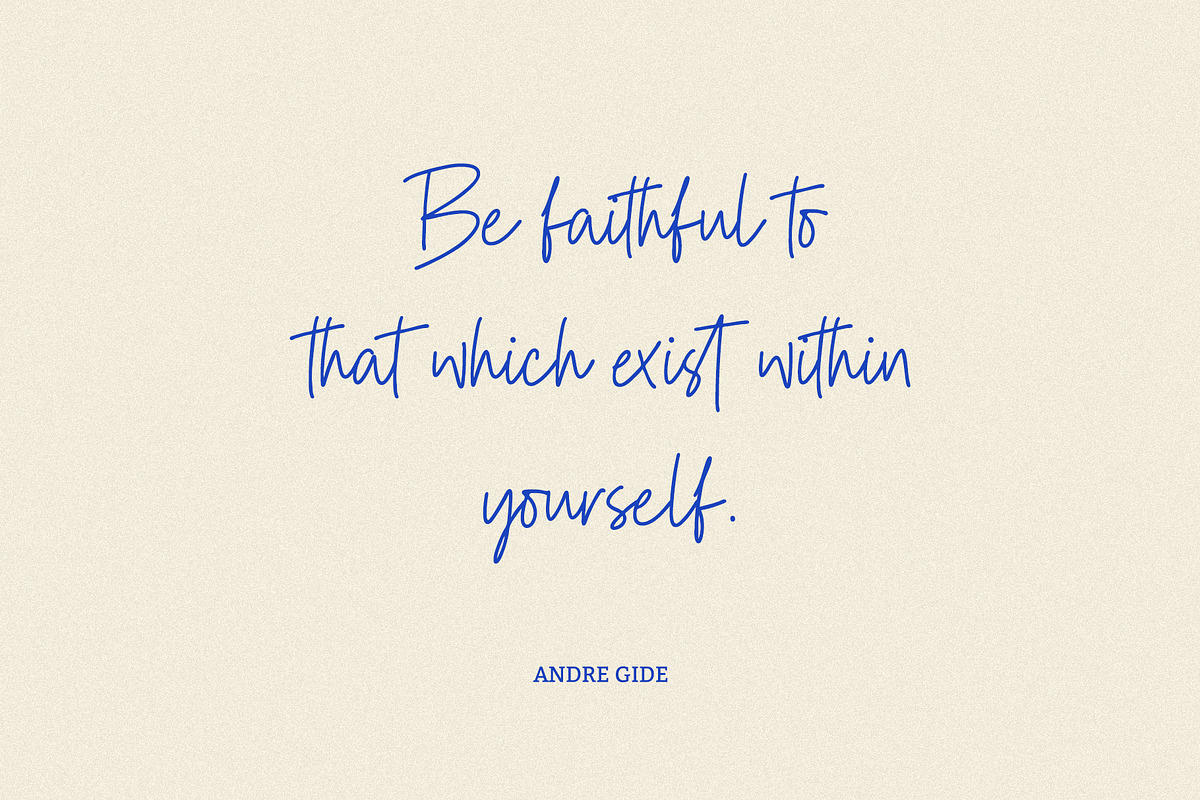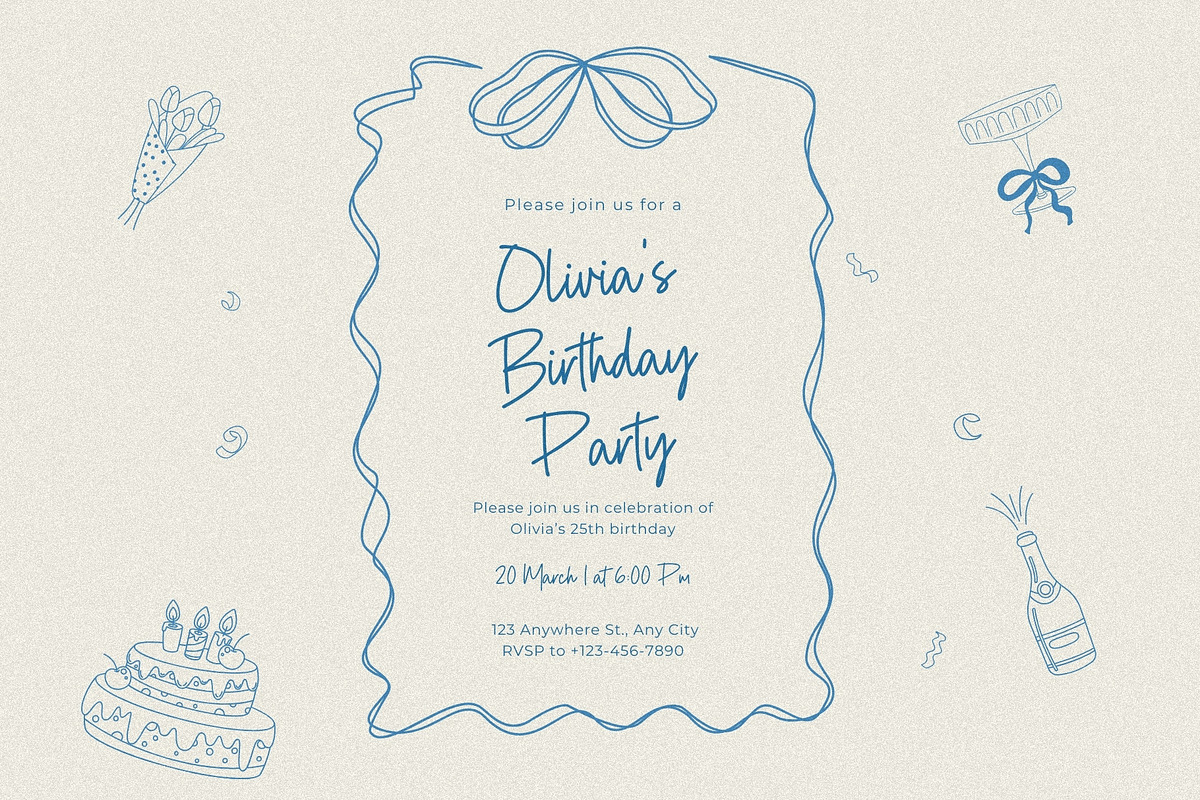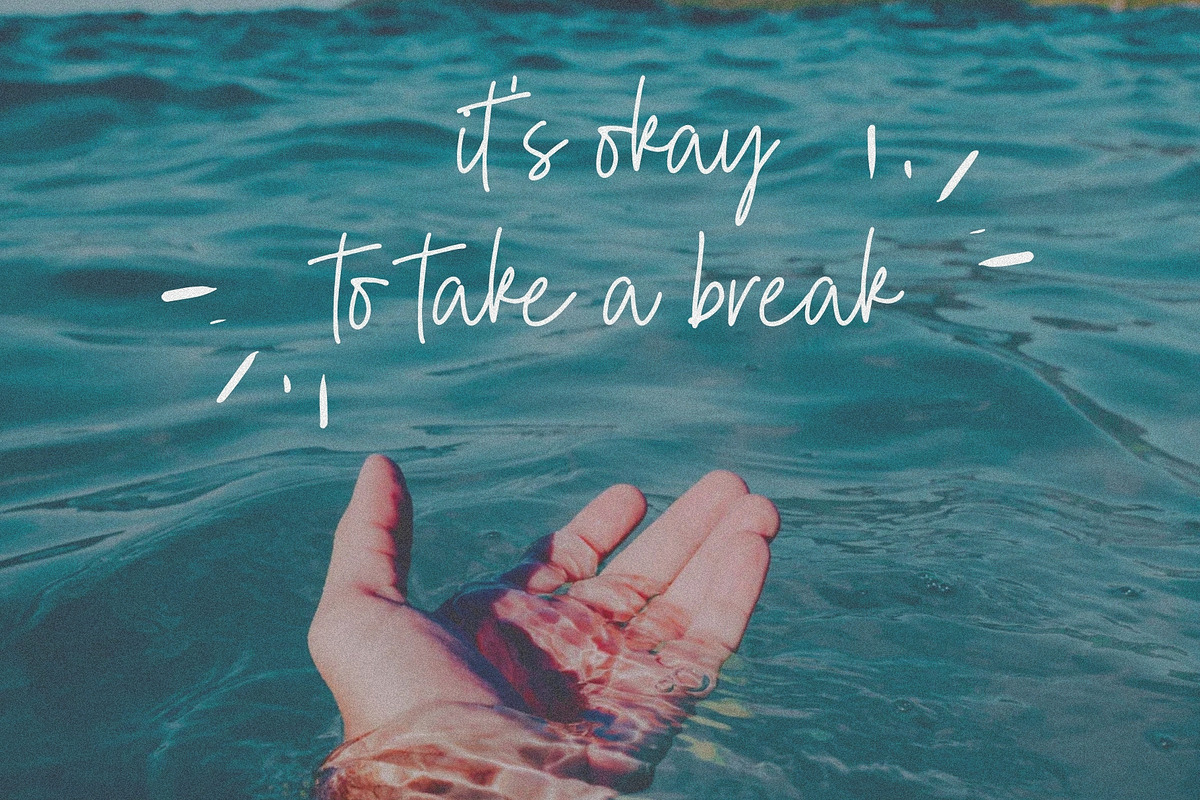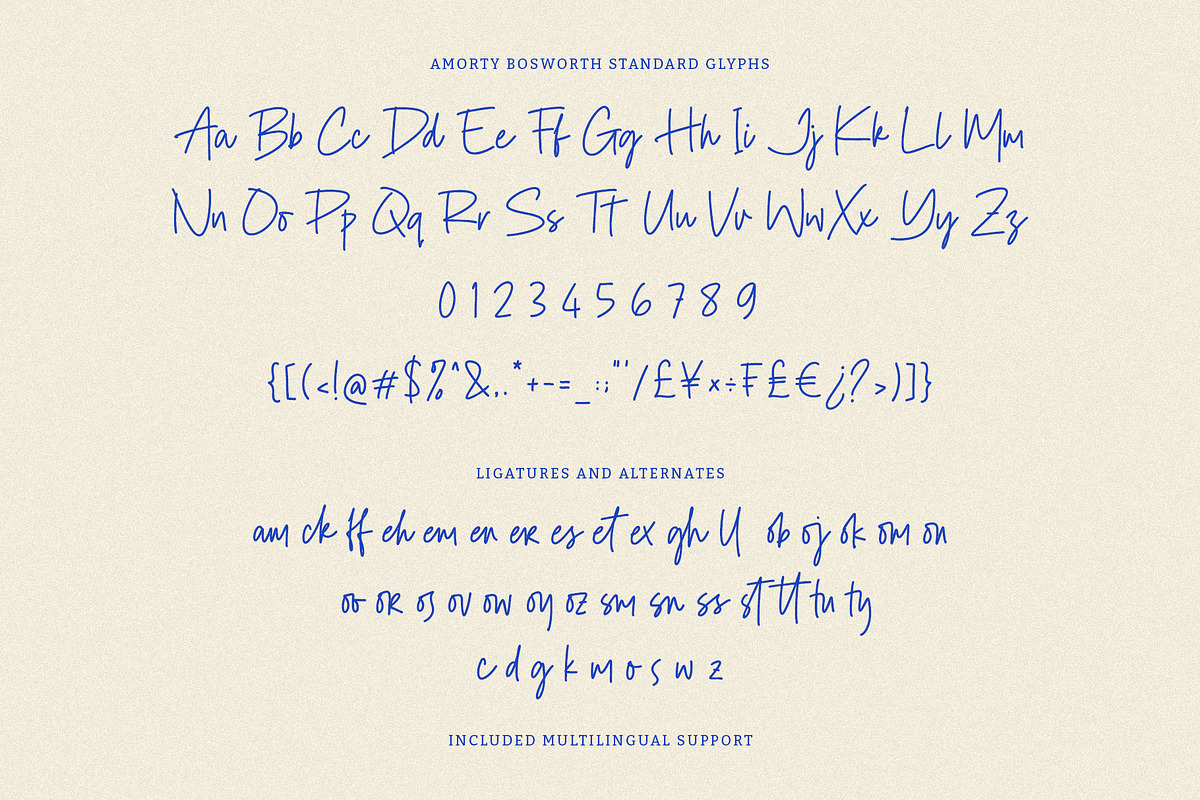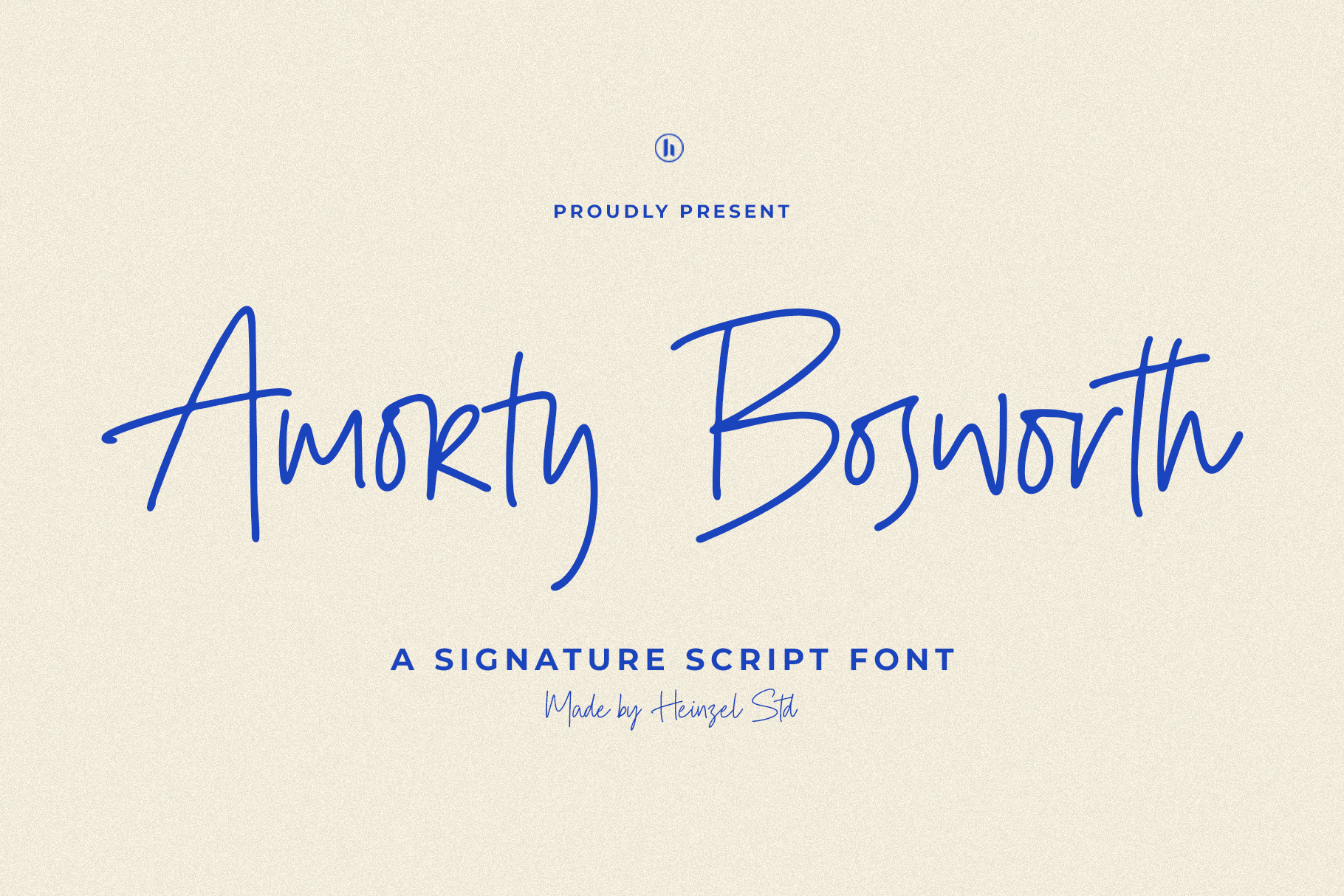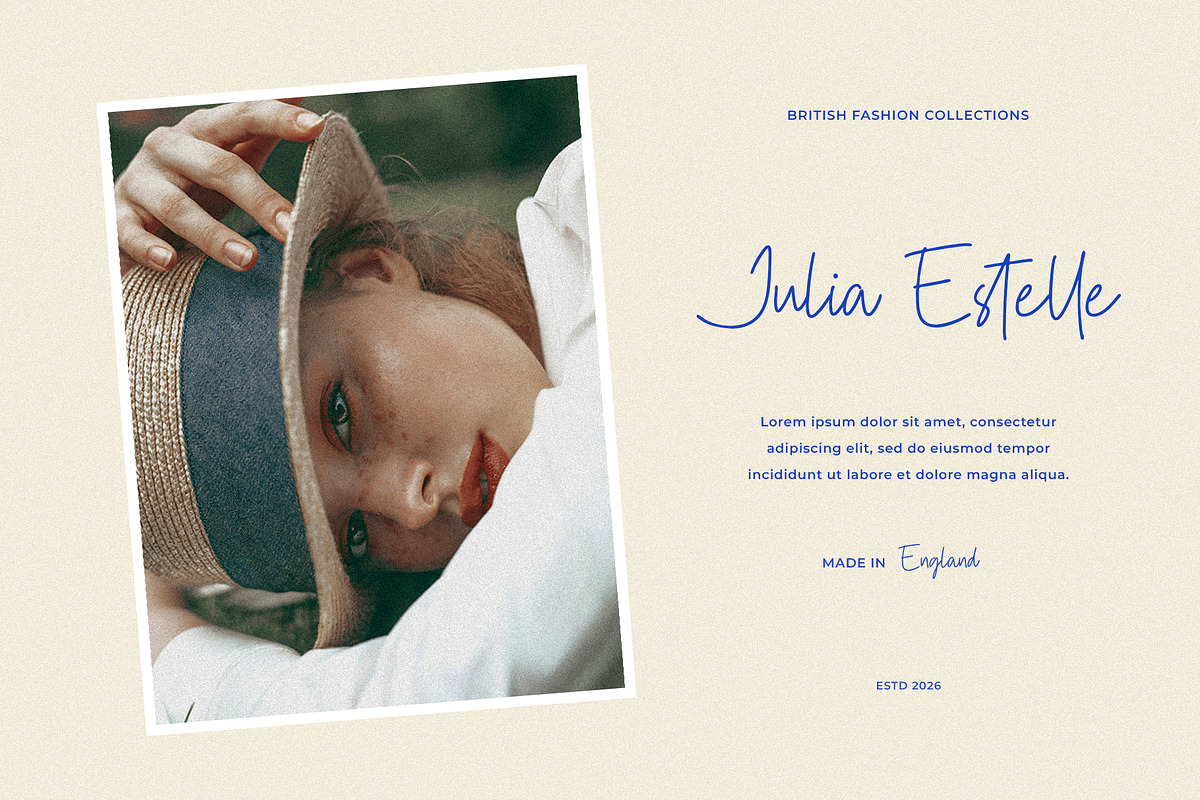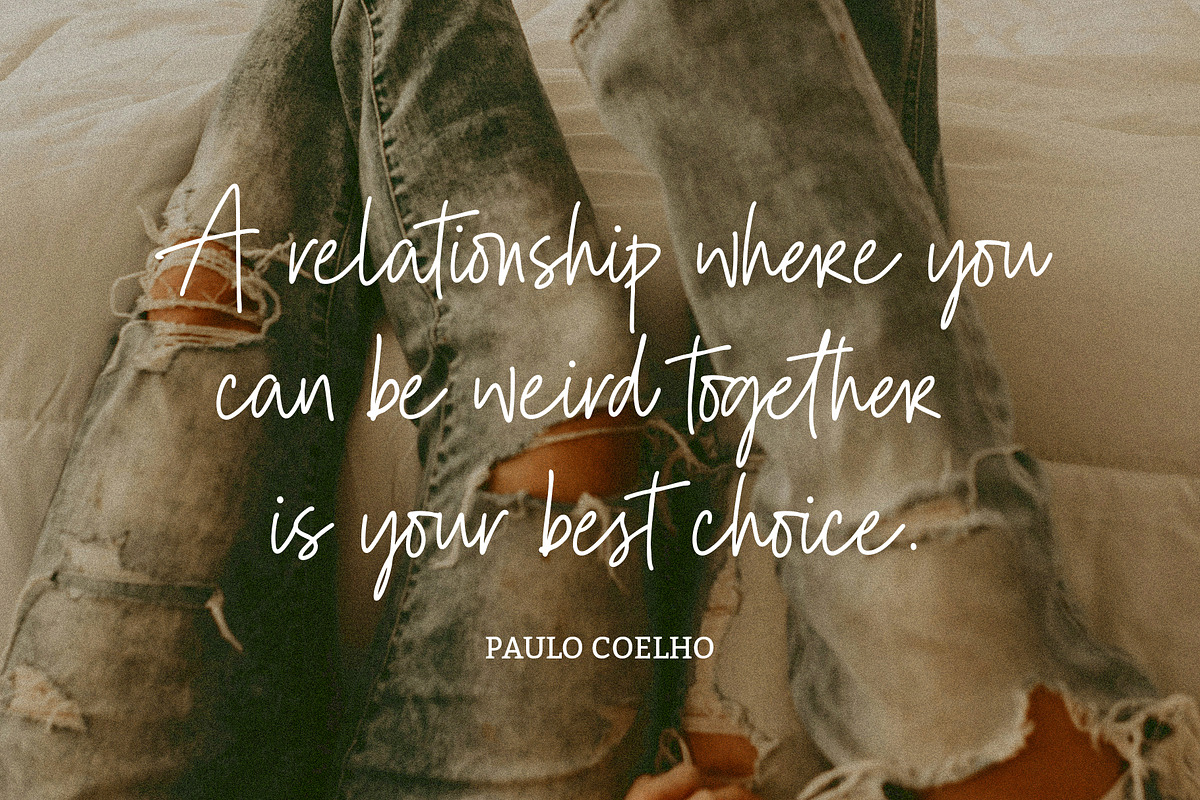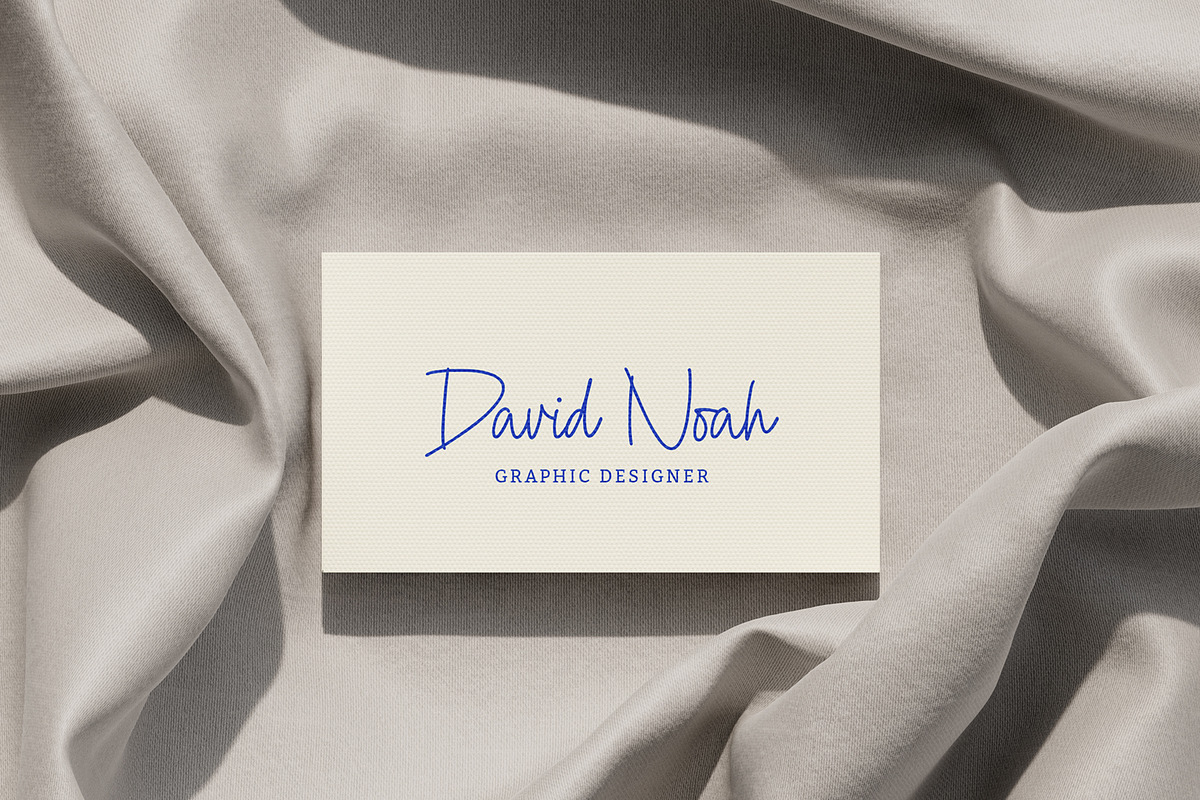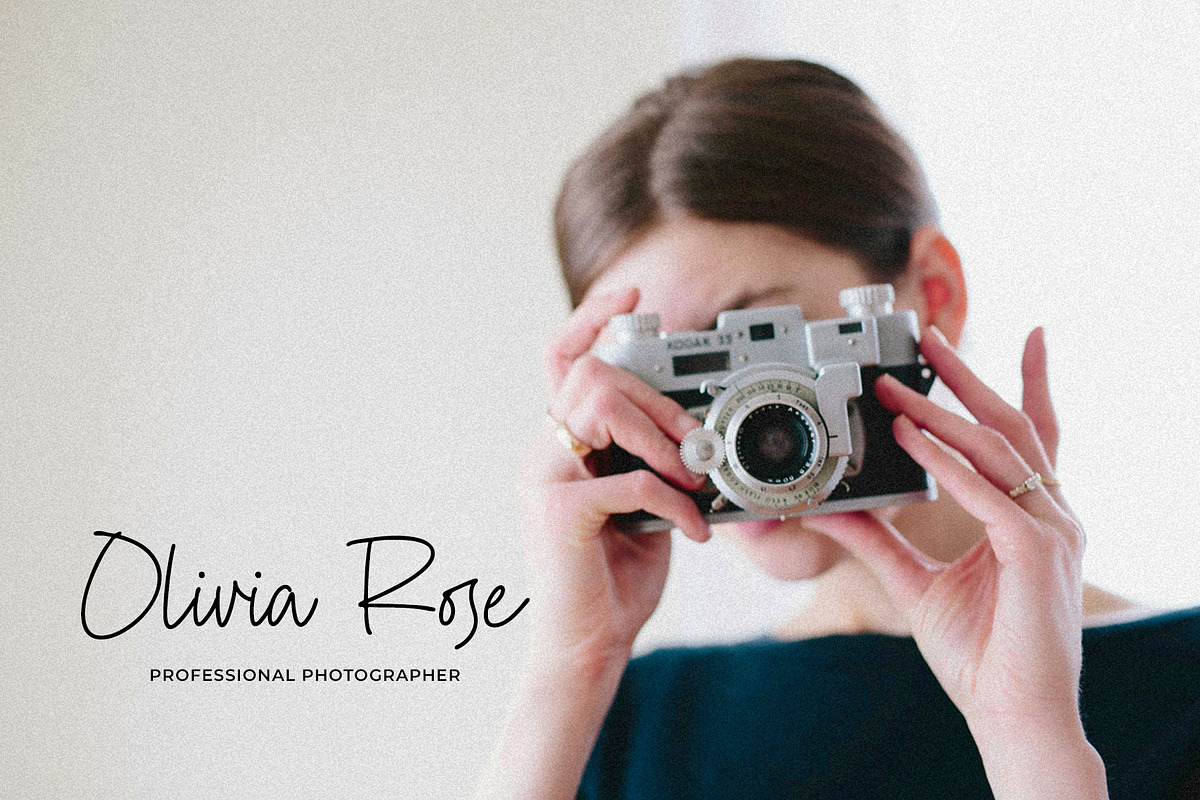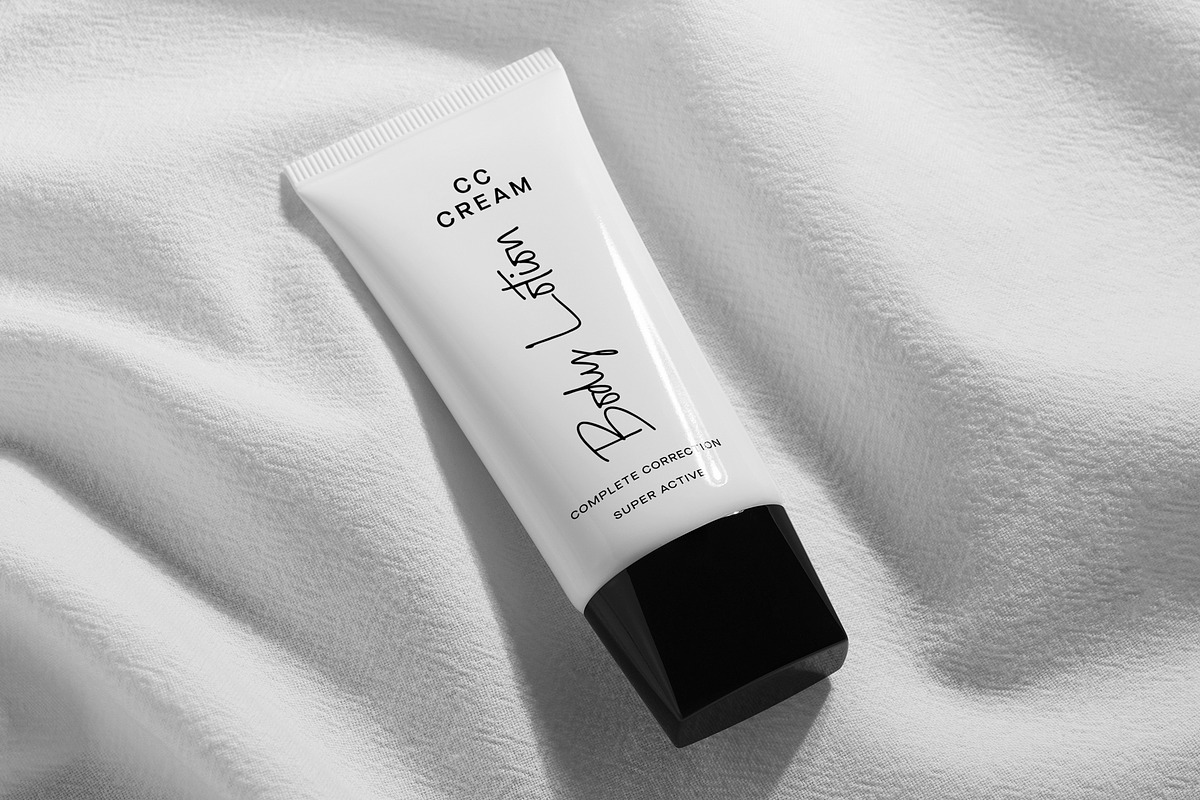
Amorty Bosworth Signature Font
Amorty Bosworth is a stylish signature script font designed to capture the natural elegance of modern handwriting. With its smooth strokes, balanced curves, and clean signature-style flow, this font brings a sophisticated and personal touch to any design project. The letterforms are crafted to look authentic and expressive, making them perfect for branding, logos, social media graphics, invitations, packaging, and creative typography layouts.
The beauty of Amorty Bosworth lies in its simplicity and elegance. Each character flows naturally, creating a handwritten appearance that feels both professional and artistic. This makes it ideal for designers who want to add a luxurious yet friendly personality to their visual designs.
Whether you're creating stylish branding, elegant wedding invitations, modern logos, or signature-style quotes, Amorty Bosworth delivers a refined and contemporary handwritten aesthetic. Its versatility allows it to blend perfectly with minimalist layouts, luxury branding, and modern editorial designs.
Designed with attention to detail, Amorty Bosworth helps designers achieve a polished handwritten look while maintaining readability and charm.